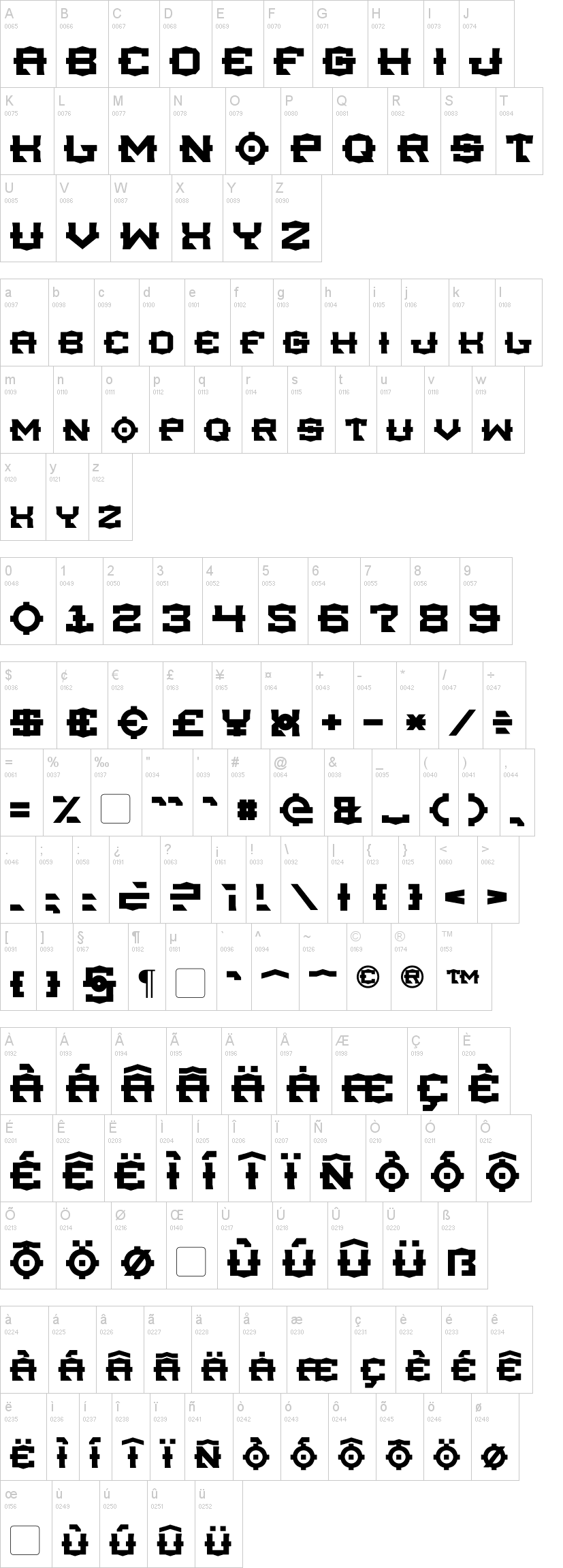
Note of the authorThis is a bold, decorative font based on logos used within TSR's classic "Dragon Magazine". Includes full alphabet, extended punctuation, euro.